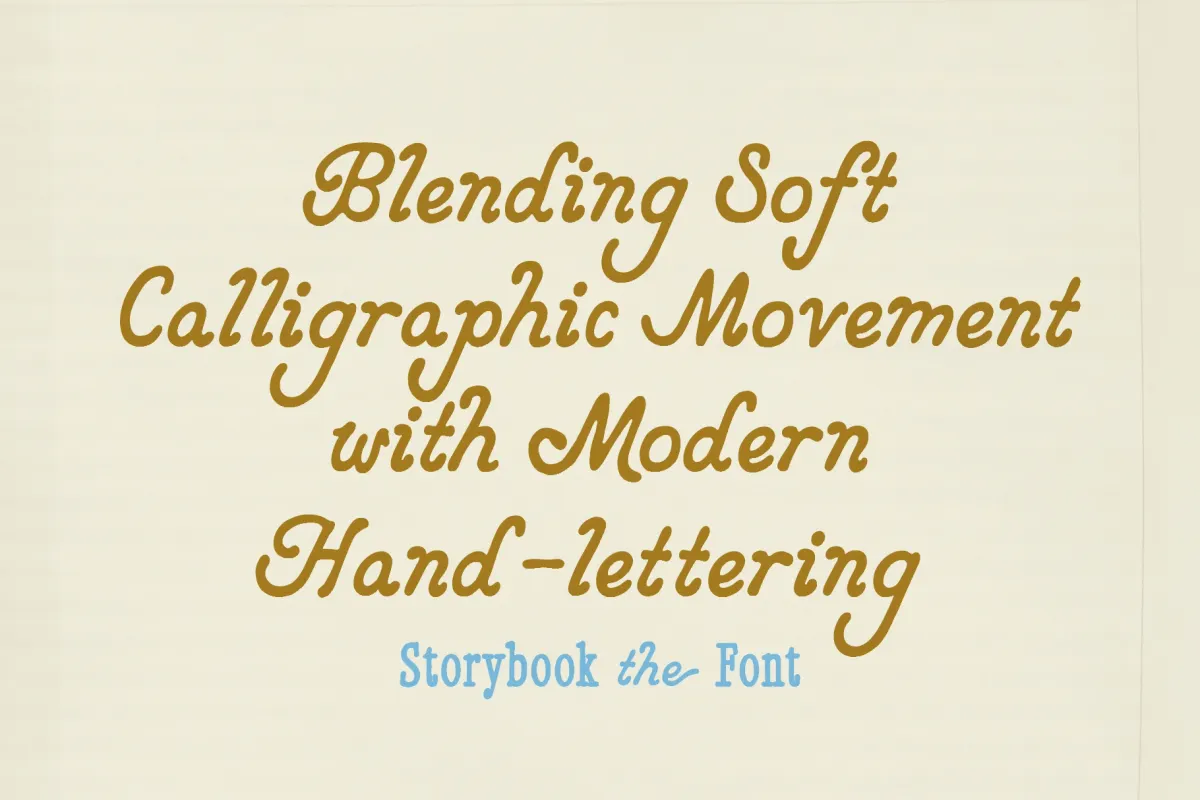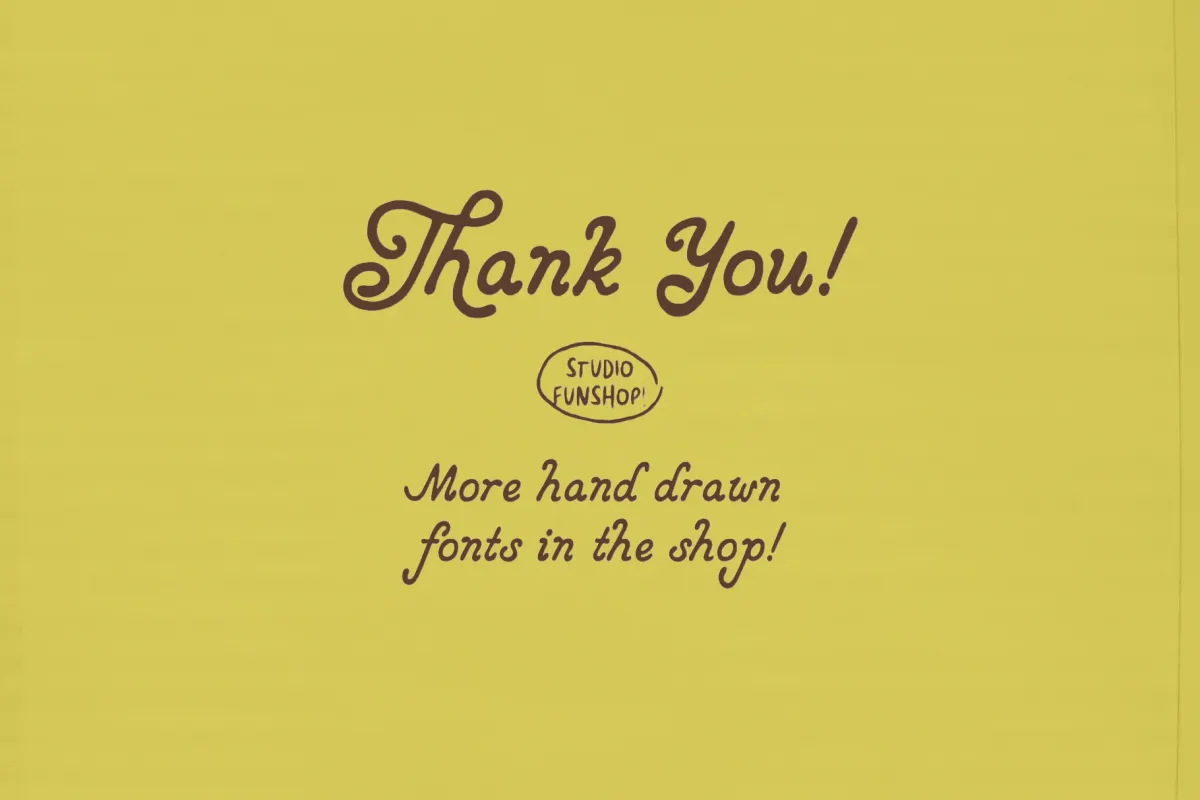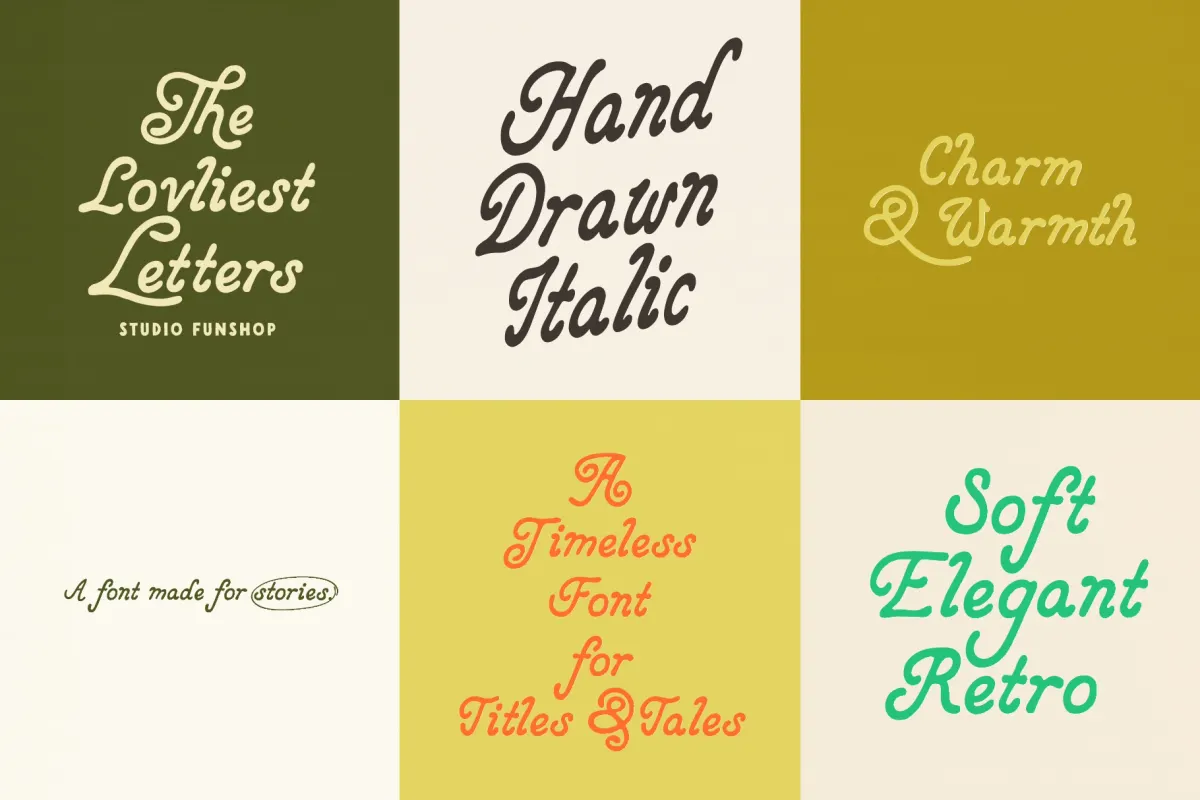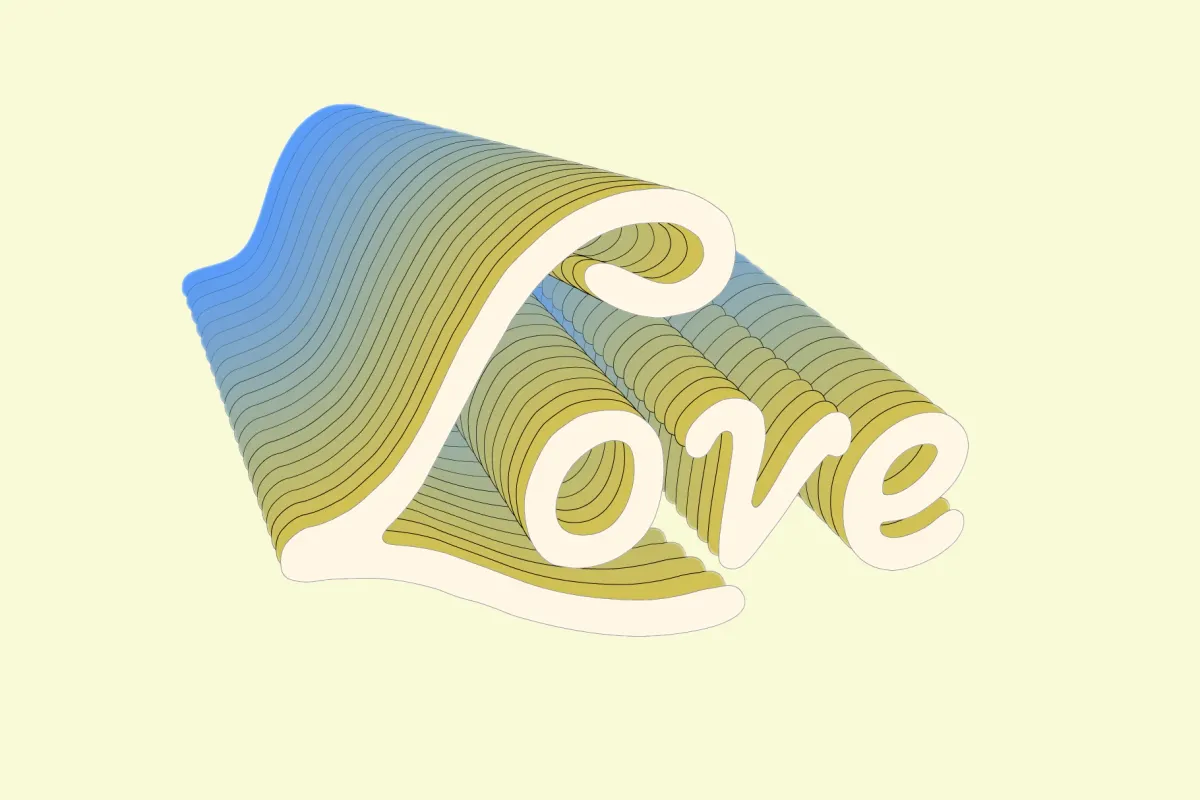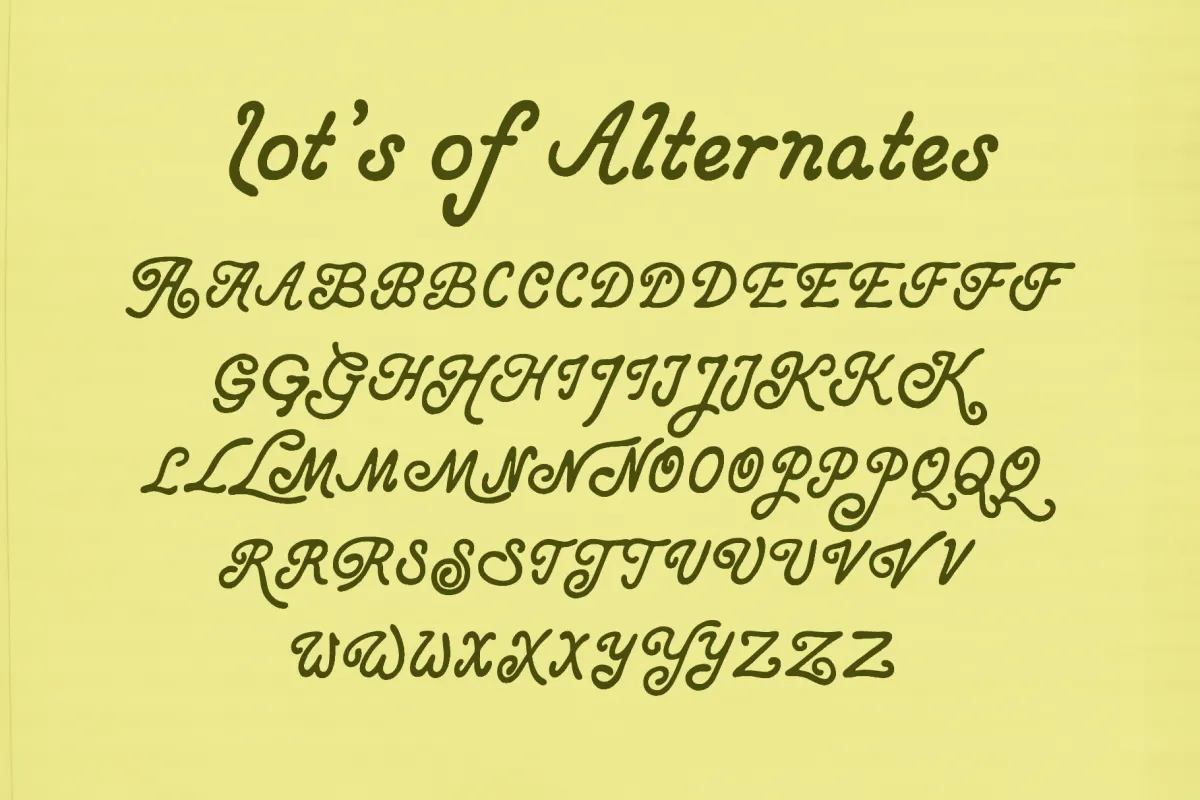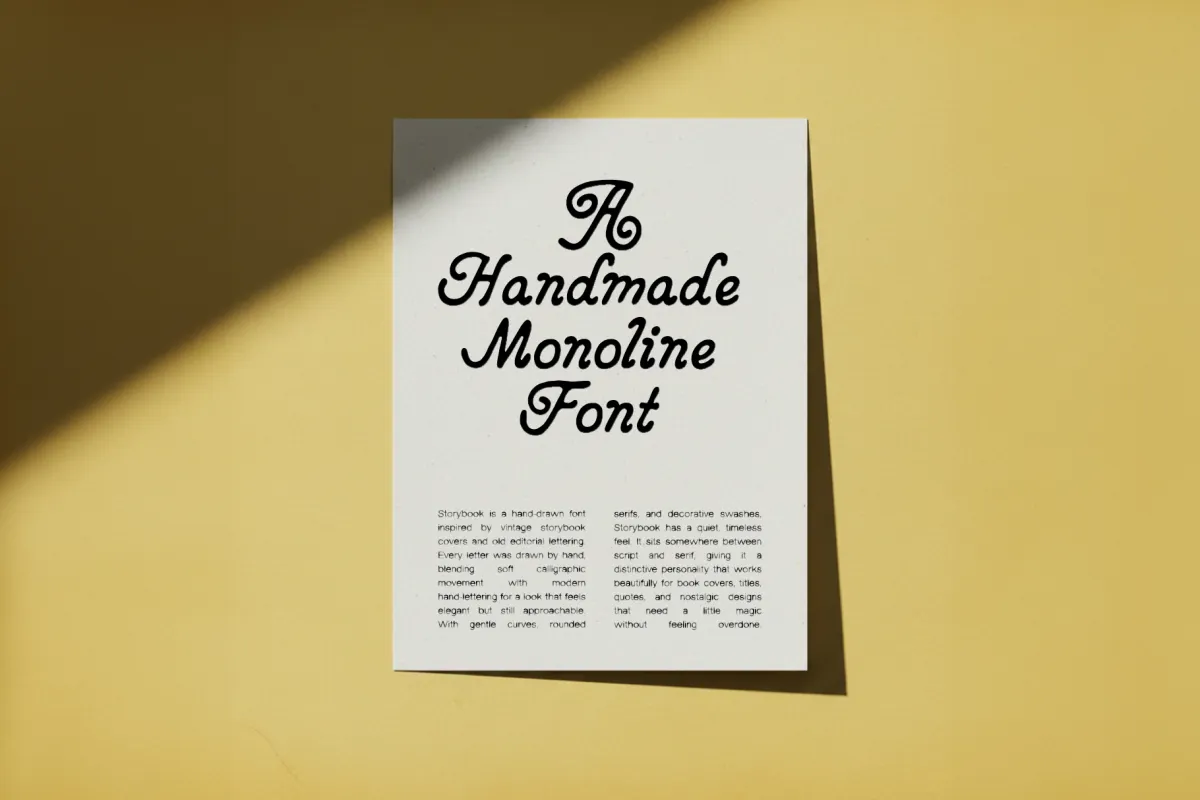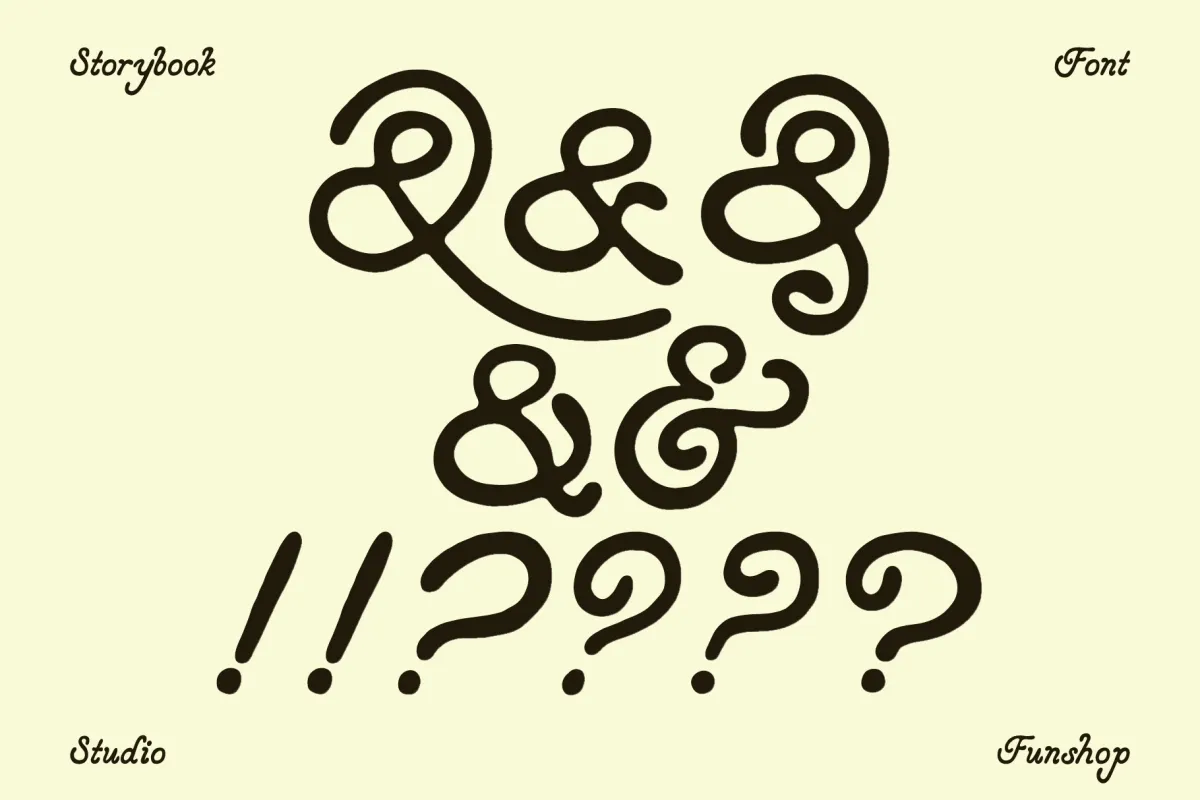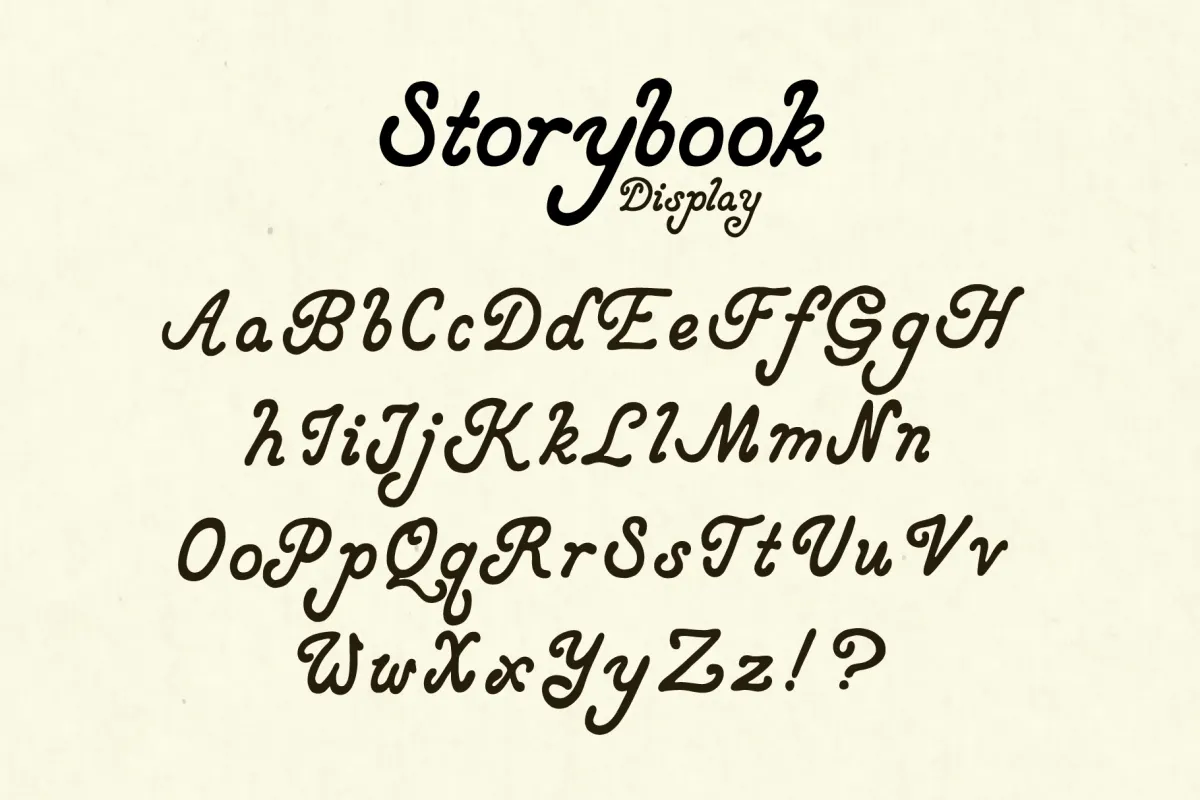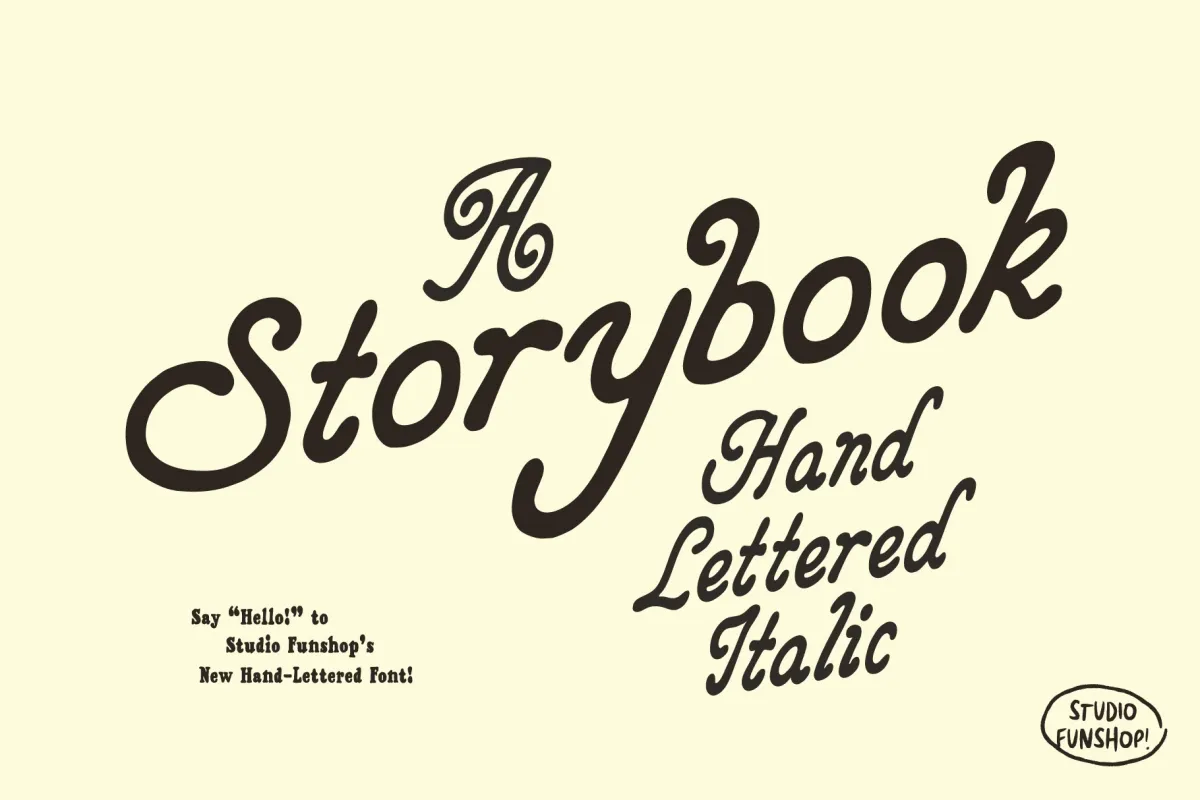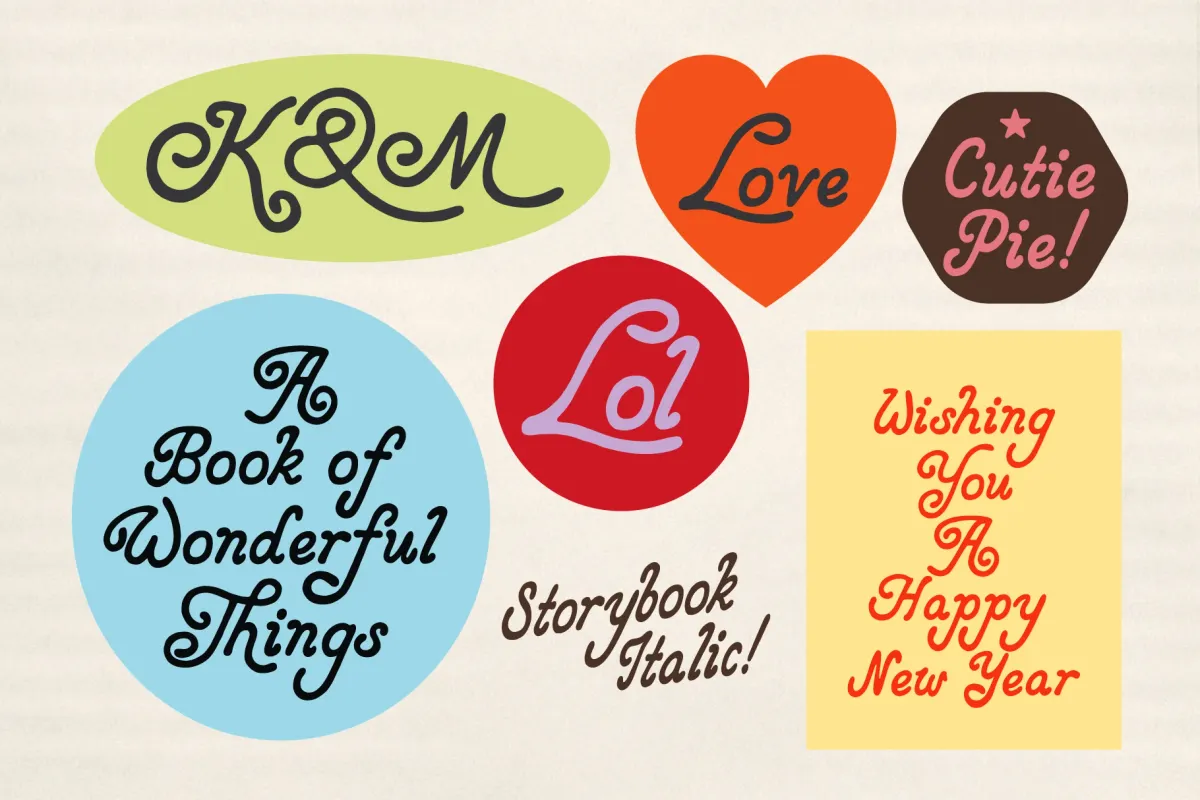
Storybook - Retro Hand-Drawn Italic Font
Storybook, the hand-drawn italic type brings the charm of vintage storybook covers, old editorial lettering, and softly brushed sign-painting. It embraces soft calligraphic movement with modern hand-lettering, giving the typeface an elegant personality that feels expressive and full of character. The font's theatrical rhythm place it somewhere between script and serif, which makes it especially lovely for work with a magical, romantic, or literary tone.
- Book covers and title pages — children's books, poetry collections, journals, fairytale-inspired layouts.
- Branding and logos — boutiques, cafés, bakeries, stationery brands, handmade shops.
- Packaging design — candle labels, tea tins, soap wraps, gift boxes, confectionery sleeves.
- Social content — quote cards, seasonal promos, announcement posts, campaign graphics.
- Editorial layouts — feature titles, chapter openers, pull quotes, decorative headings.
- Uppercase & lowercase A–Z;
- Numbers, symbols, and punctuation;
- Decorative alternates.